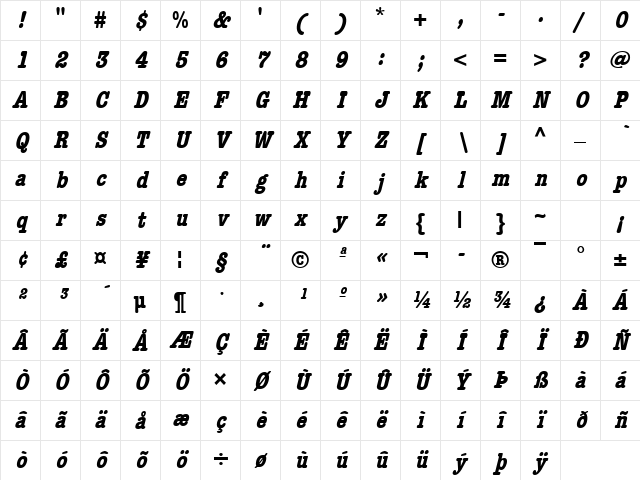
EditorCndn Bold Italic Free Font
EditorCndn Bold Italic
EditorCndn Family
Design Context for EditorCndn
EditorCndn is a composed and adaptable typeface that performs quietly and consistently across a wide range of design contexts. The slanted form adds forward momentum and visual energy. Its bold stroke weight gives it real presence on the page.